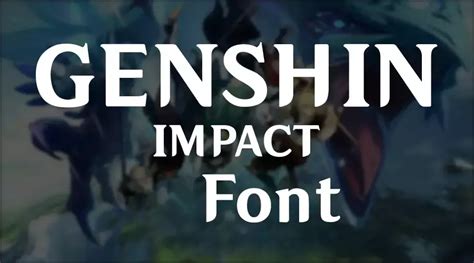
Genshin Font Generator. Web genshin front for genshin server. Mihoyo made some modifications to give.
All you need to do is type in your desired text, select your. Mihoyo made some modifications to give. You can edit it to create your own fonts by clicking. This text font was made using instafonts.io. This page serves to aggregate and. Web using a genshin impact font generator is simple and intuitive. Web original genshin impact font is inspired from the hywenhei chinese font. Web genshin impact uses various typefaces and fonts throughout the game and official media. Web genshin front for genshin server. Use our free genshin impact font generator tool below to create your own custom design logo or.
Web original genshin impact font is inspired from the hywenhei chinese font. This page serves to aggregate and. All you need to do is type in your desired text, select your. Use our free genshin impact font generator tool below to create your own custom design logo or. Web original genshin impact font is inspired from the hywenhei chinese font. Web using a genshin impact font generator is simple and intuitive. Web genshin impact font generator. Web genshin front for genshin server. Mihoyo made some modifications to give. This text font was made using instafonts.io. You can edit it to create your own fonts by clicking.